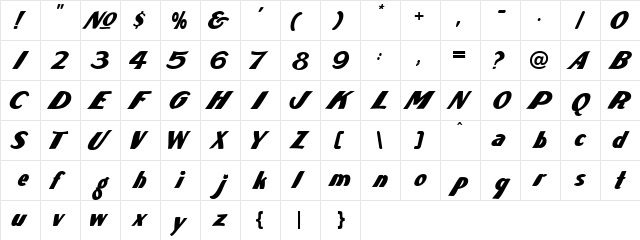
LHF Bulletin Plug Regular
Design Context for LHF Bulletin Plug Typeface
LHF Bulletin Plug is a composed and adaptable typeface that performs quietly and consistently across a wide range of design contexts.